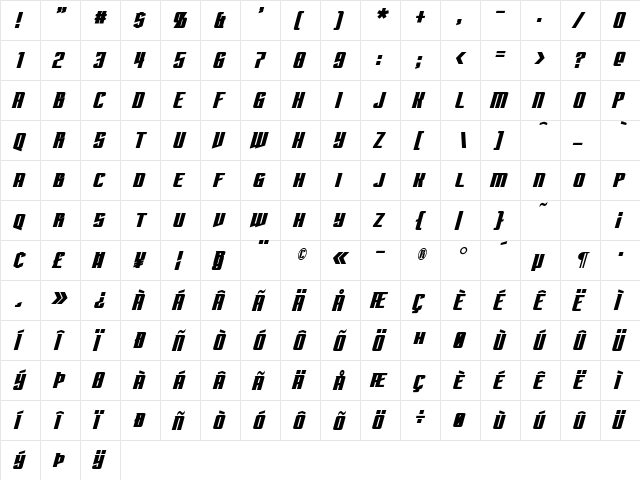
Subspace Bold Italic Font Preview
Subspace Bold Italic
Subspace Bold Italic Font Details
| Foundry | Pixel Sagas |
| Designer | Neale Davidson |
Design Context for Subspace Typeface
Subspace takes a measured approach to typography — its balanced proportions and neutral character make it a reliable workhorse for both digital and print work. Its italic angle brings a sense of urgency and motion to the letterforms. The heavy weight commands attention and anchors typographic hierarchies.
Pro Tip: Use Subspace for emphasis, pull quotes, and subheadings where its slanted energy can add rhythm to the layout.